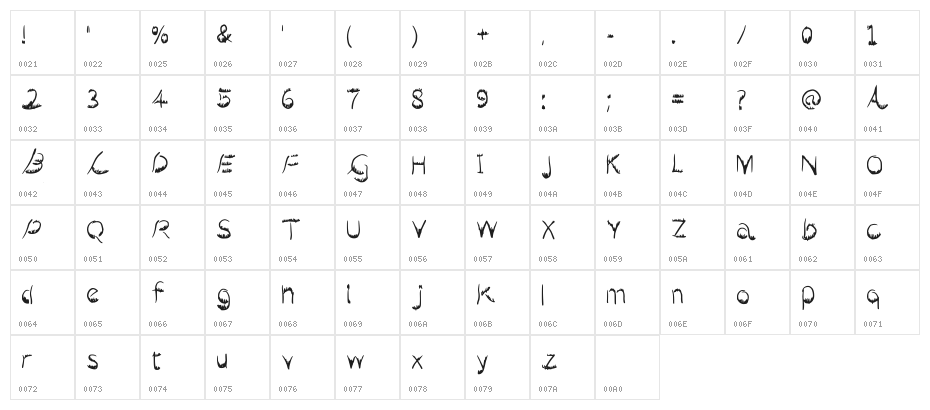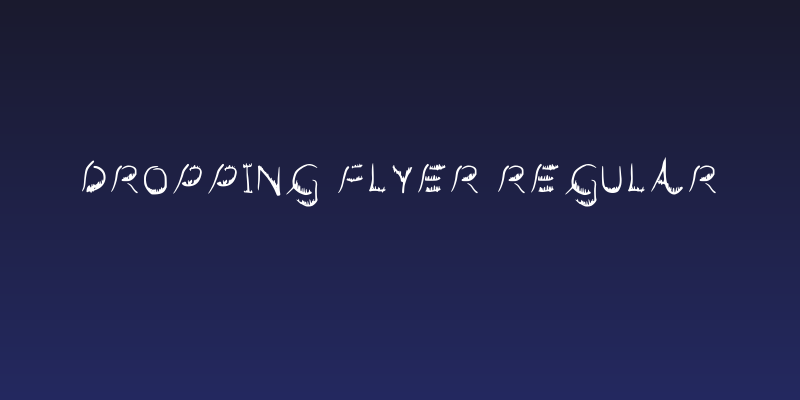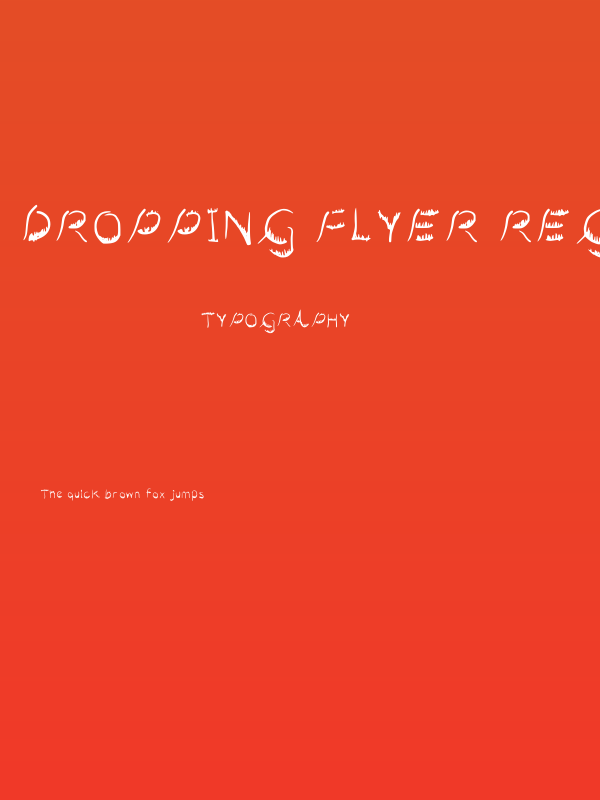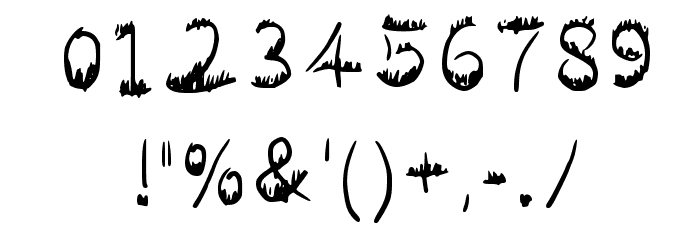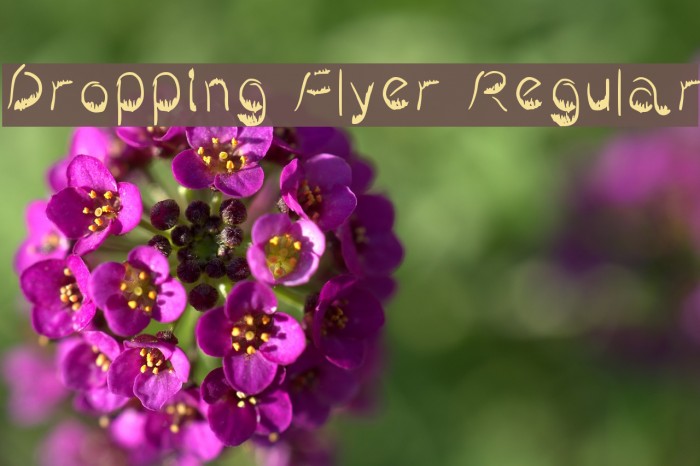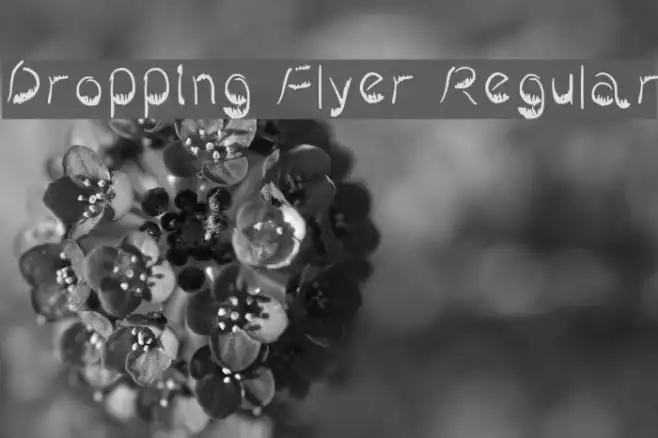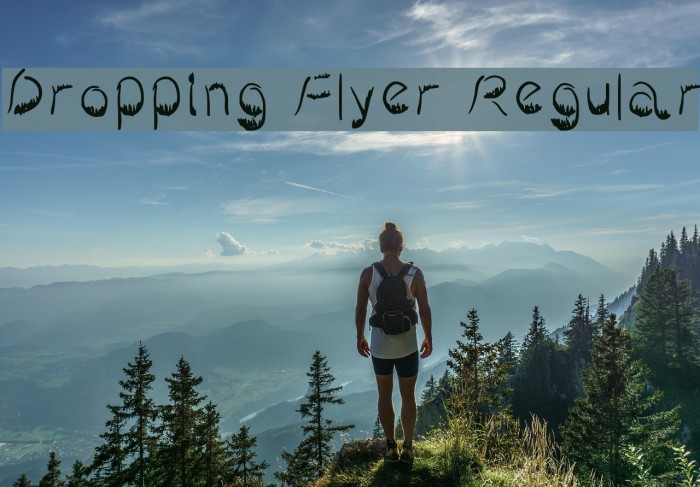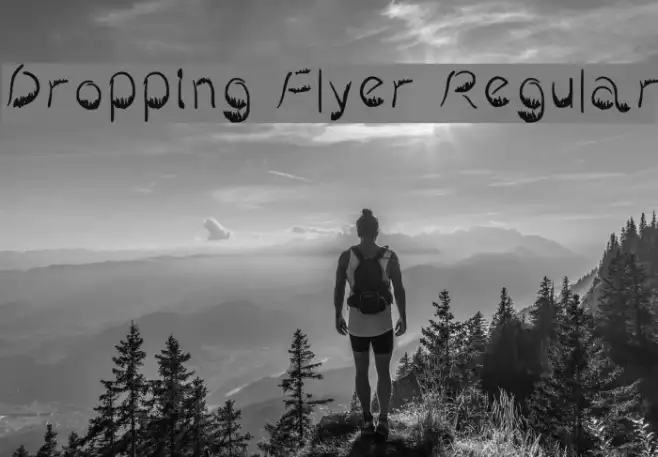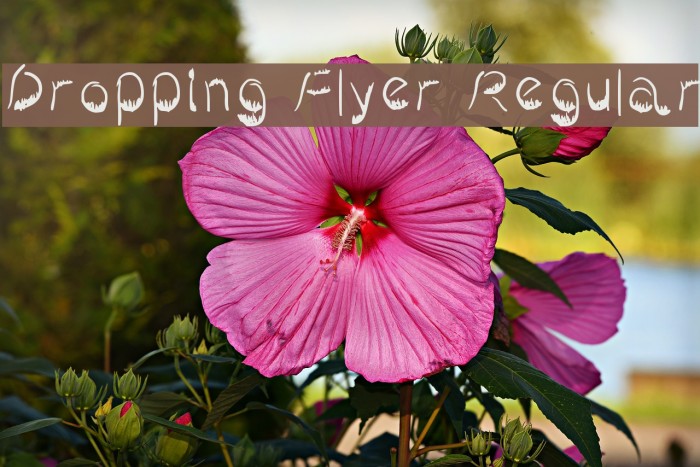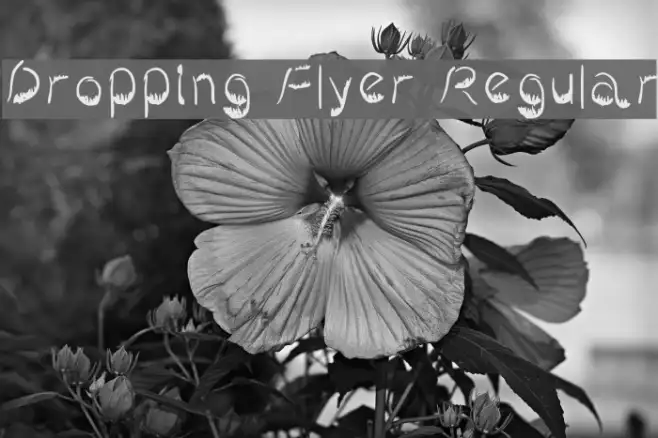
Dropping Flyer Regular Font
Dropping Flyer Regular Description
This font features a unique and playful design with a dripping effect that gives it a dynamic and slightly chaotic appearance. The characters are irregular and have a hand-drawn feel, with varying stroke thicknesses that create a sense of movement. The uppercase and lowercase letters maintain a consistent style, while the numbers and special characters integrate seamlessly with the overall aesthetic. This font is perfect for projects that require a bold and eye-catching look, such as Halloween-themed designs, posters, or any creative work that aims to stand out.
| Proposed Projects | Ideal for Halloween designs, posters, and creative projects that need a bold, eye-catching font. |